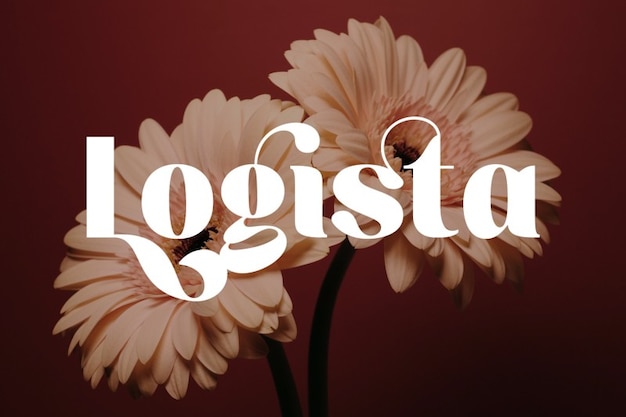
Logista Font
Logista is a font that effortlessly embodies the essence of modern elegance with a stylish and contemporary flair. Its characters exude sophistication, featuring clean lines and a sleek design that adds a touch of refinement to your text. Whether you're working on branding, editorial layouts, or any design project that demands a touch of contemporary style, Logista effortlessly infuses your text with a sense of modern grace. This font captures the essence of modern design, offering an elegant and stylish look that's ideal for those who appreciate the power of refined and timeless typography.